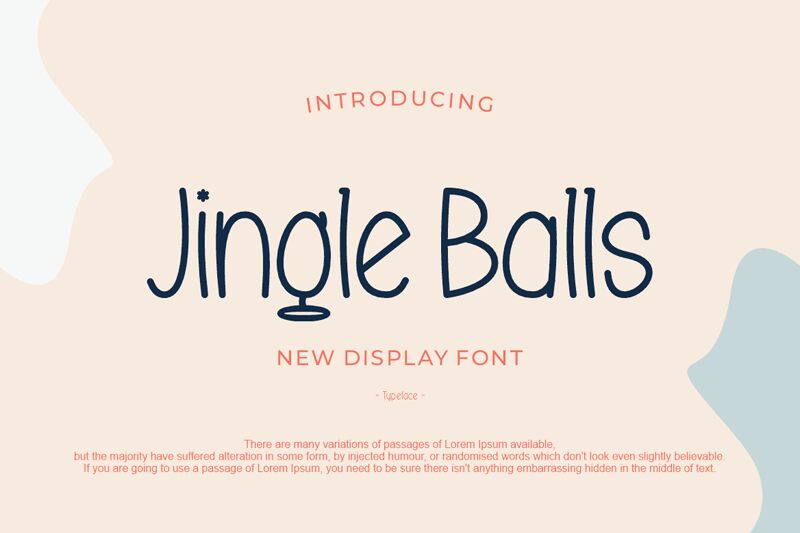
Jingle Balls font family by Gilang Ternadho is a free font family with a friendly and modern handwriting style. Each of the 2 font styles looks amusing and incorporates a double line pattern with rounded edges to add uniqueness to their design. The special cursive element was inspired by a winter theme and is made perfect for its related projects. Each of the font styles supports a limited set of symbols in addition to the standard alphabet.
Use the free font in posters and flyers, designing book covers and apps for kids, creating logos, etc. The font can also be used for invitation cards for birthday parties, holidays, and other celebratory events.